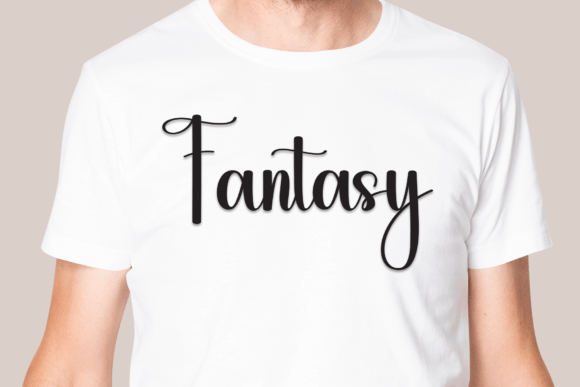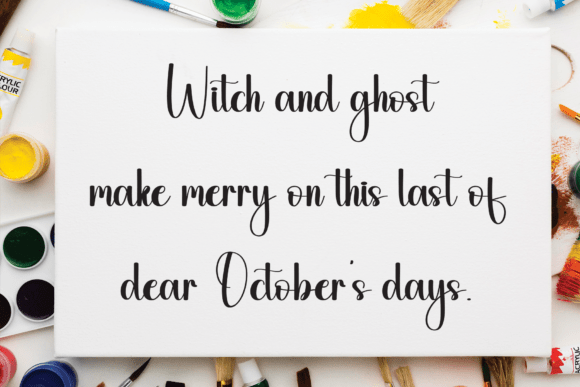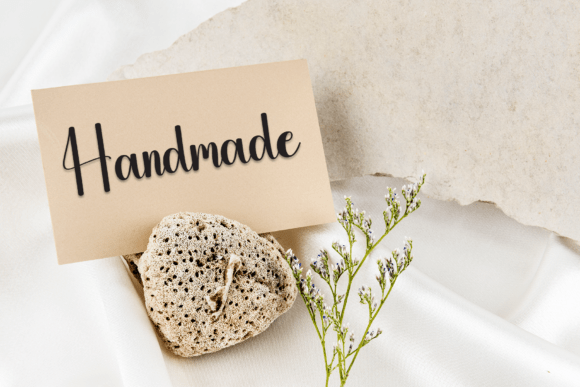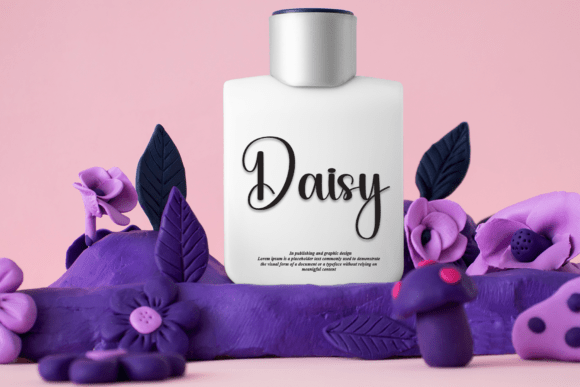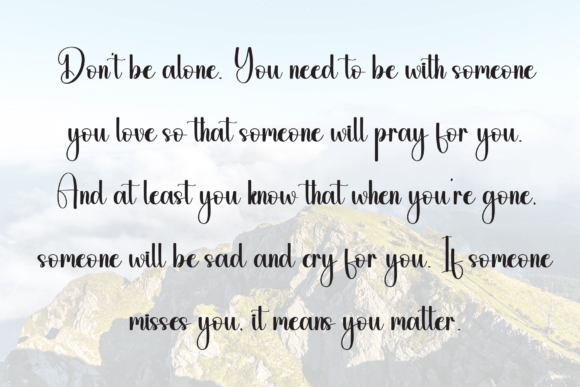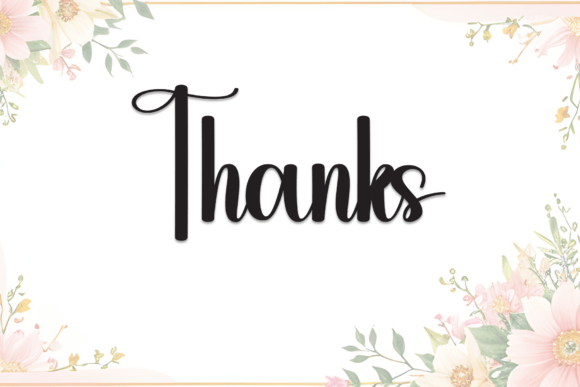
Introduction to Mindsed Font
Mindsed: A Modern Handwritten Script Elevate your personal brand with Mindsed , a stunning “Modern Handwritten Script” that defines contemporary elegance.
This typeface captures the effortless flow of real penmanship, featuring tall, slender letterforms and a graceful rhythm that feels both sophisticated and intimate The Mindsed font is the ultimate choice for creators who want to establish an authentic, human connection through their typography.